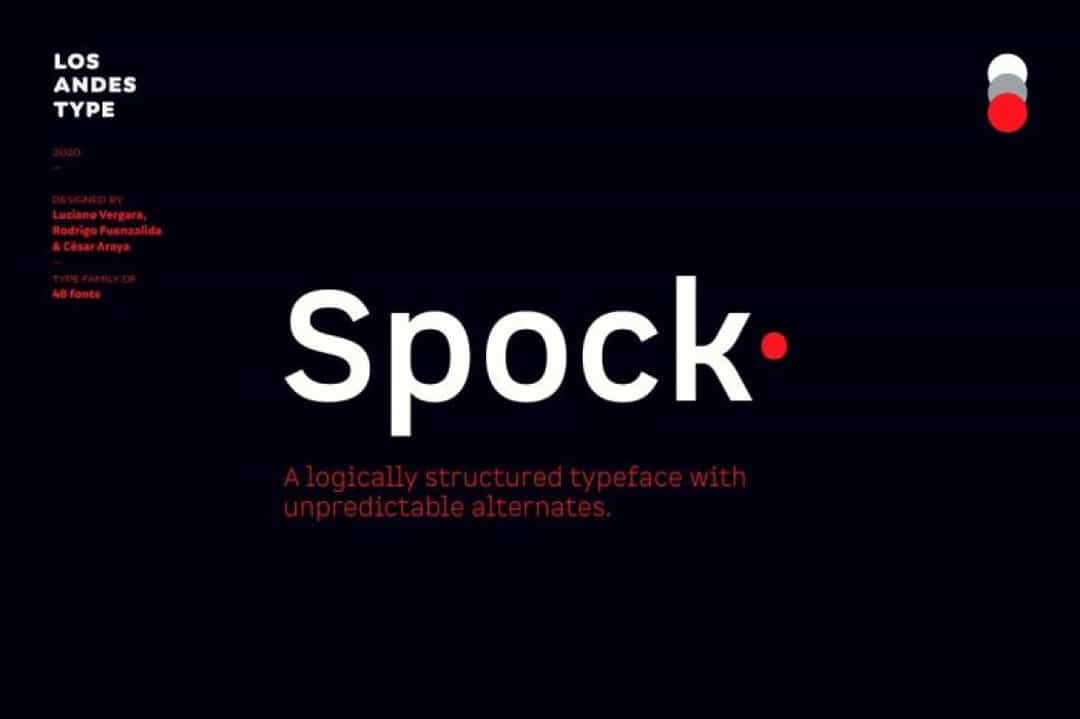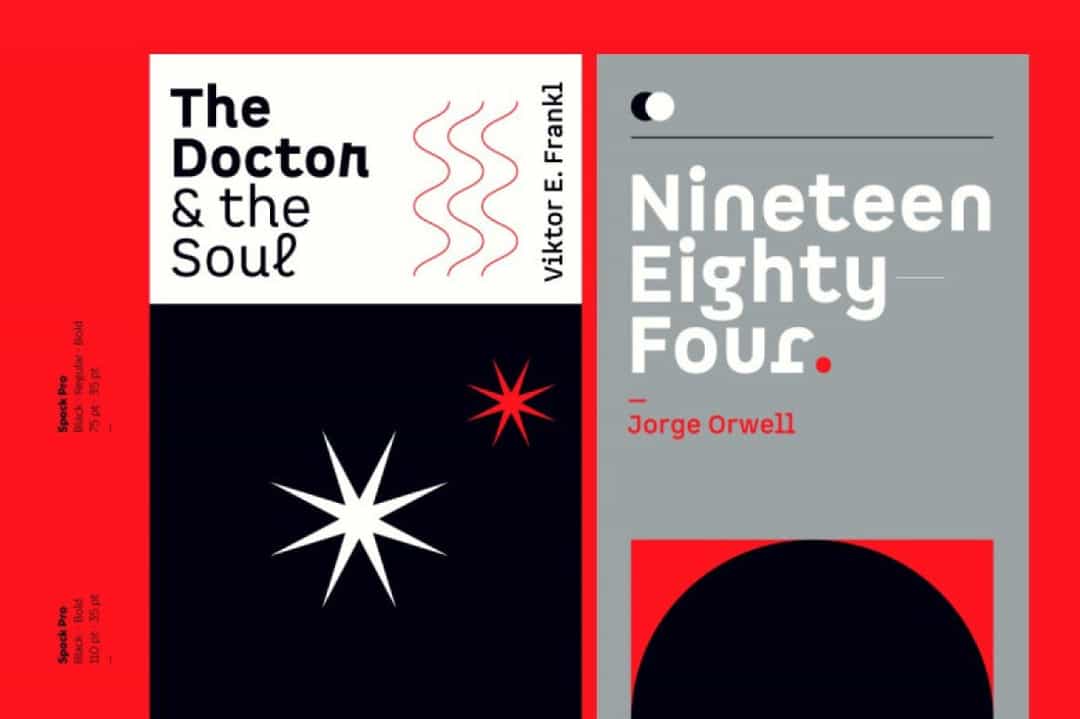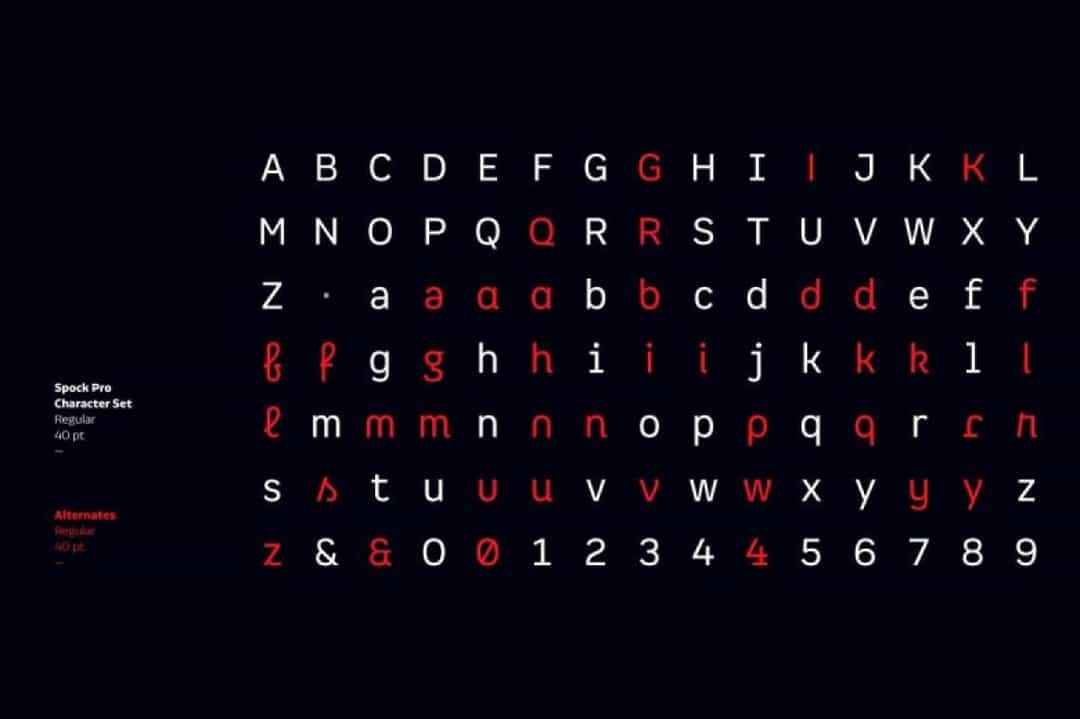
Spock Sans Serif Font Family features an uncluttered and neutral structure; however, as we explore its OpenType features we will discover various alternatives, including those featuring pointed ears glyphs. Each subfamily offers six weights with matching italics, making Spock an exceptional collection of 48 designs!